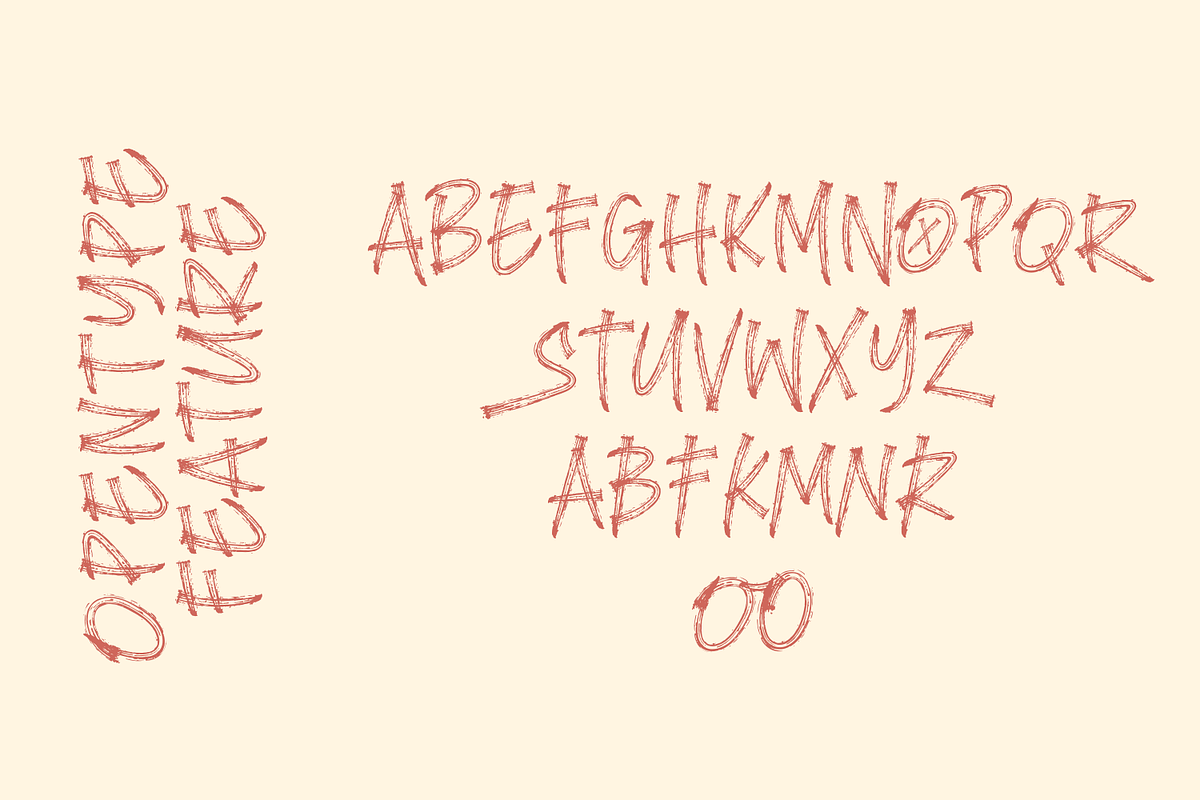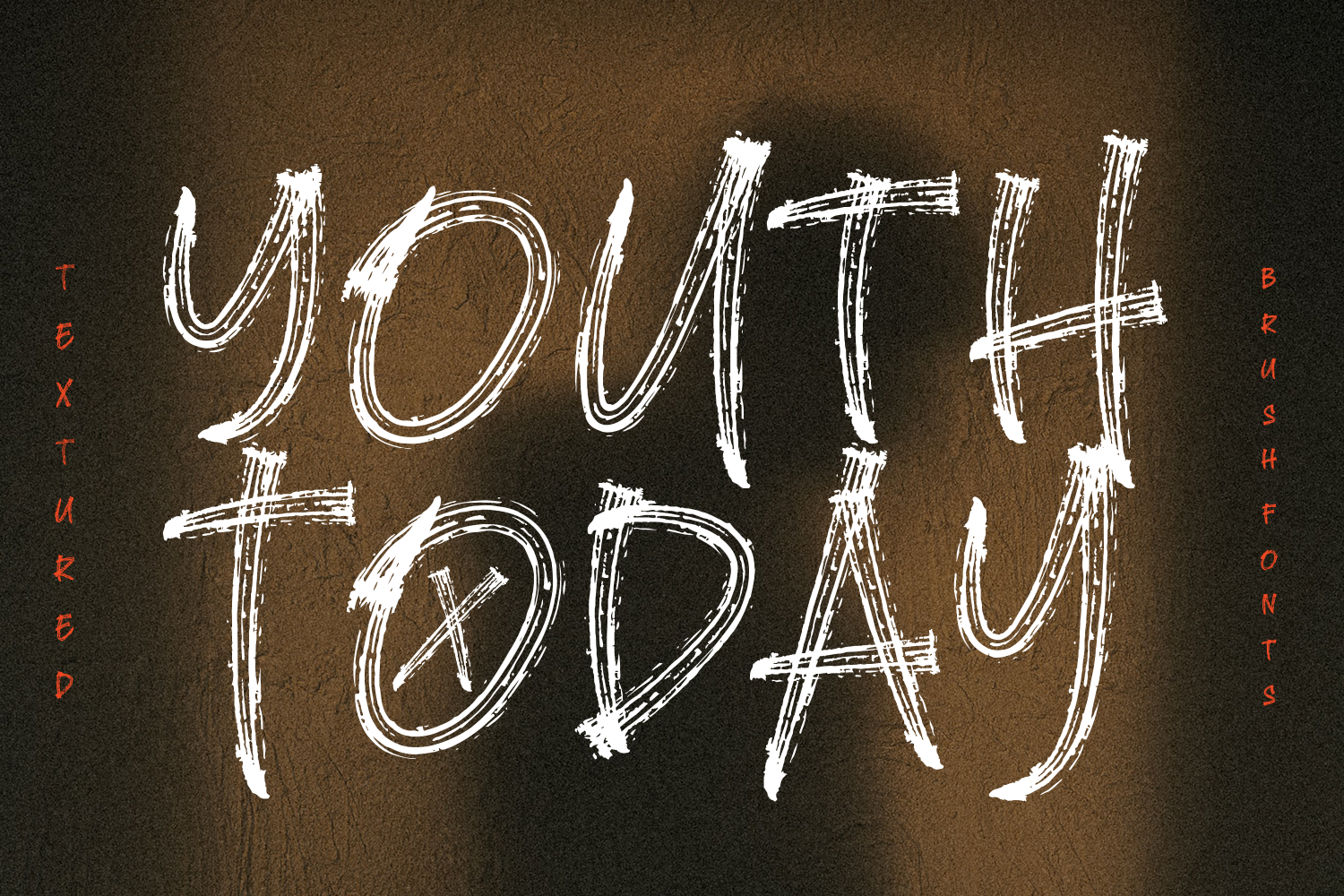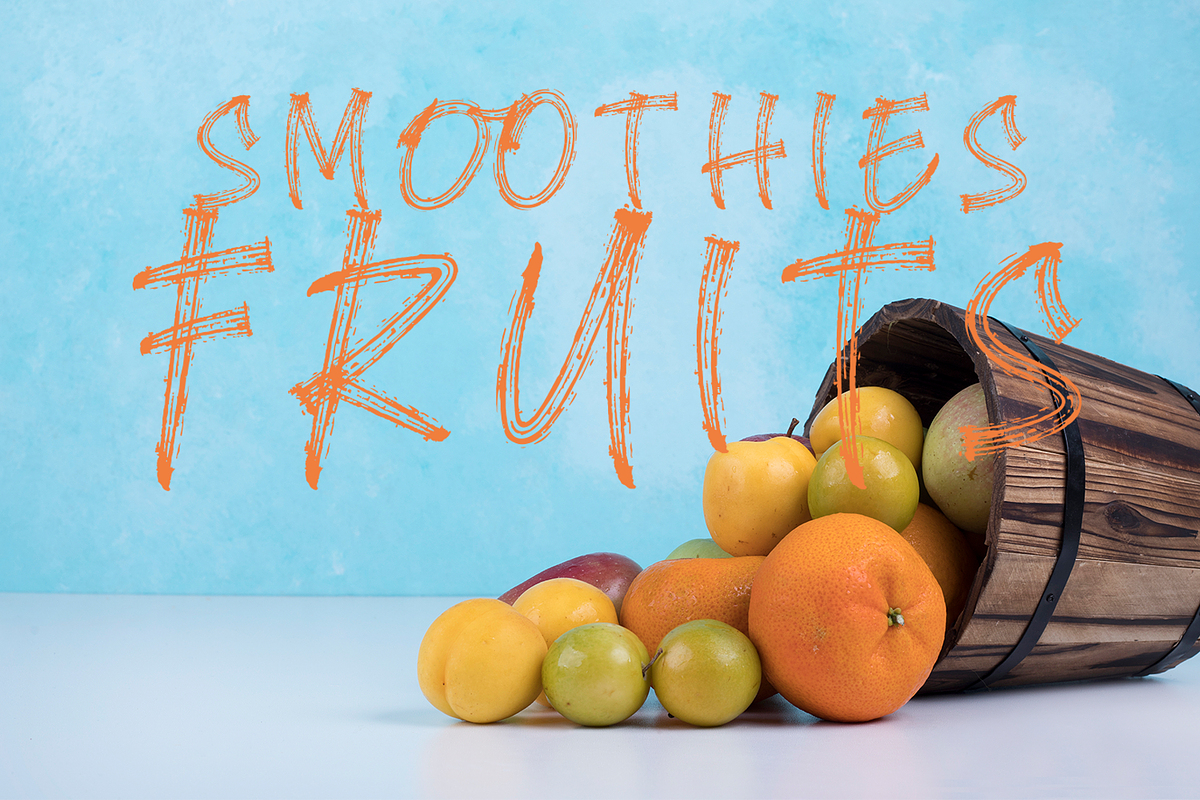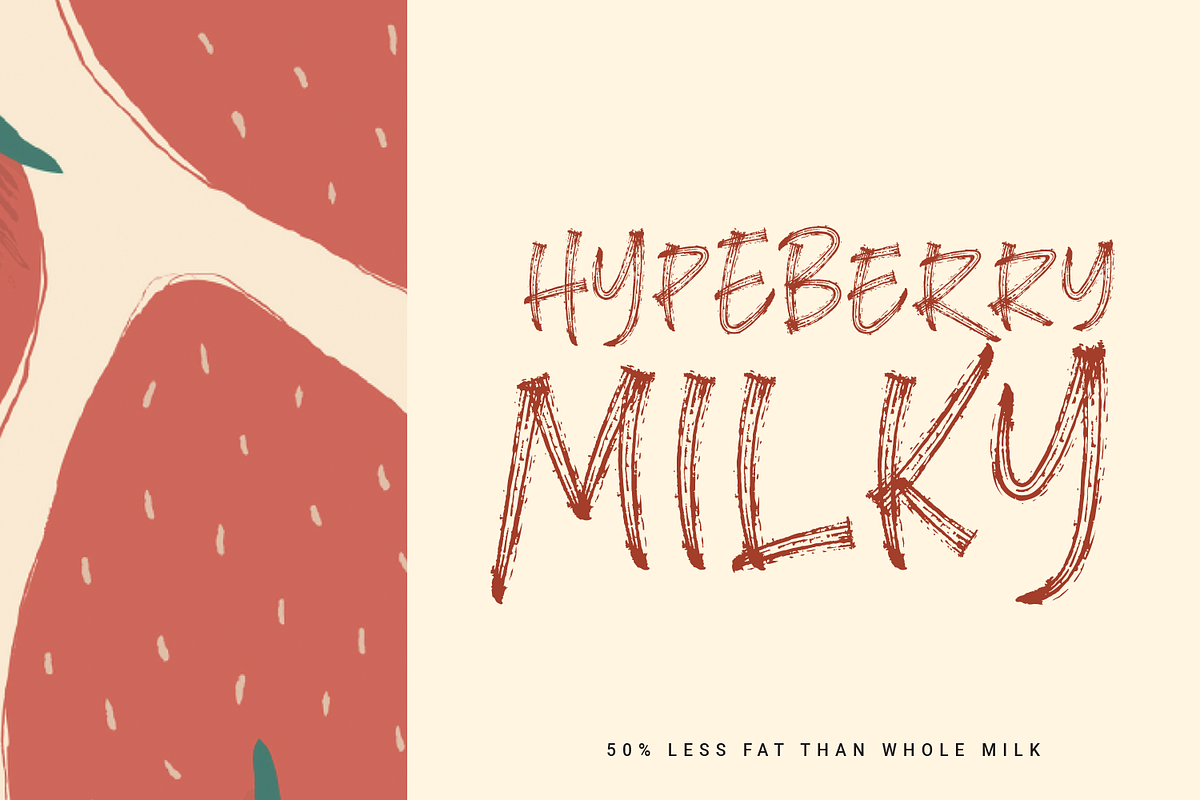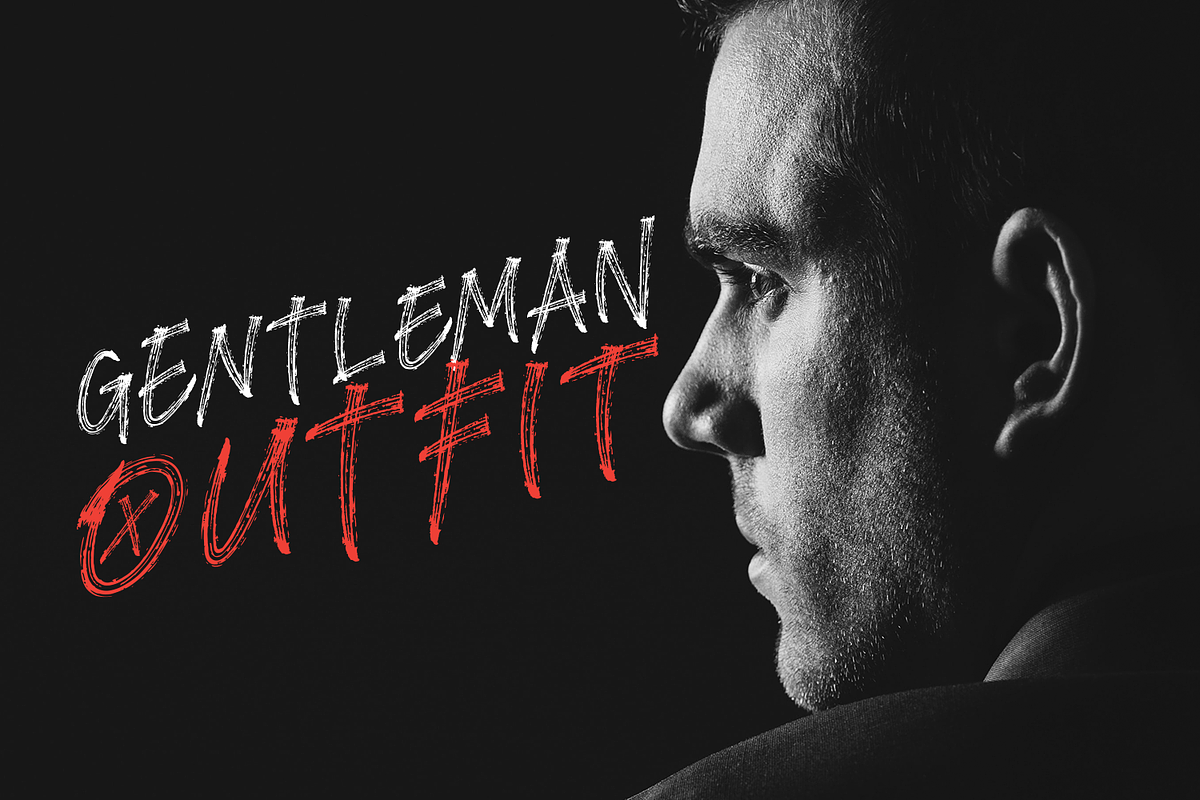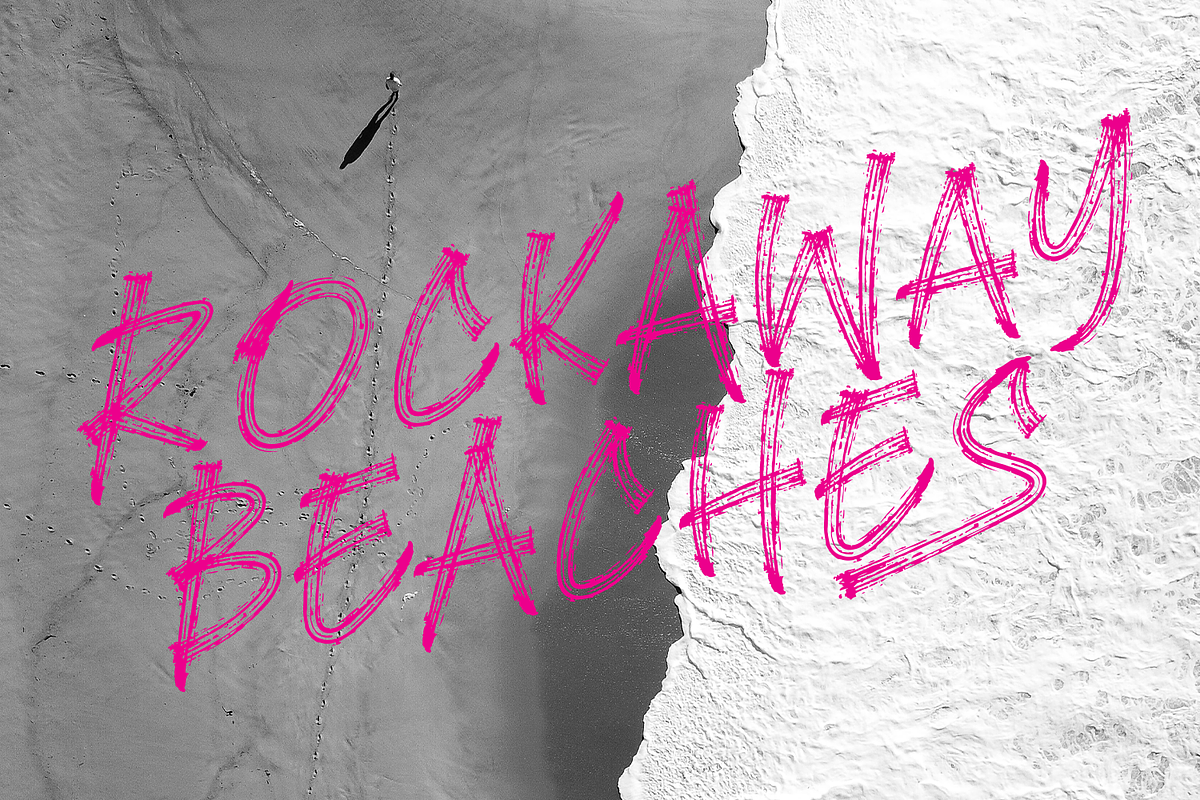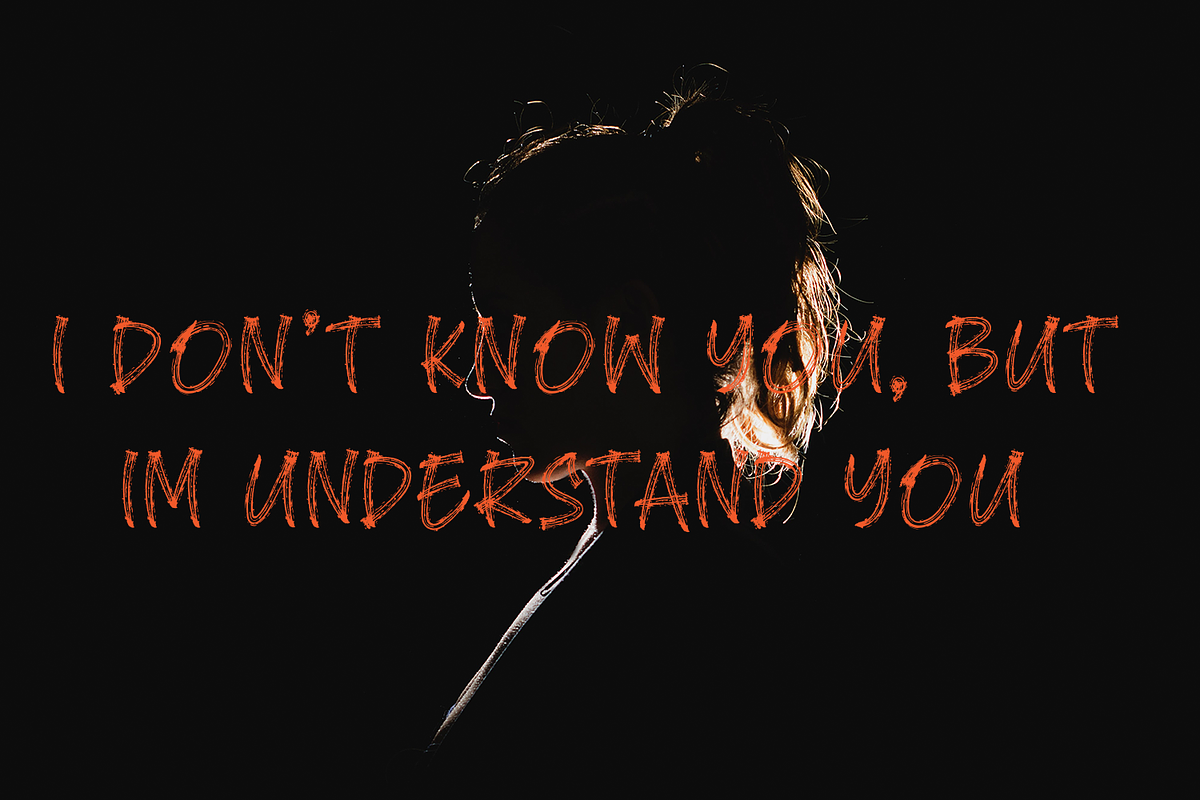
Youth Today - Textured Brush Fonts
hello, Introducing the new textured brush fonts Youth Today is textured brush (Transparency) fonts. easy to read, easy to access opentype, good kerning, strong.
- Stylistic Set 1
- Stylistic Set 2
- Standart Ligature